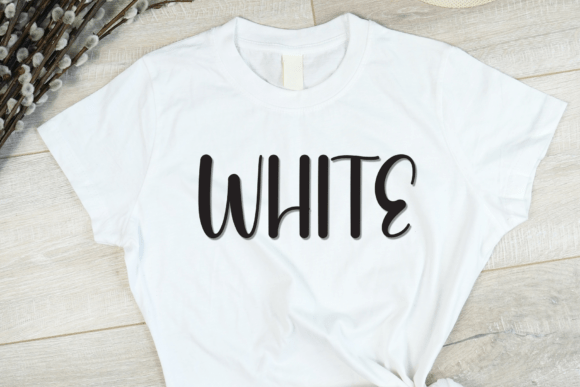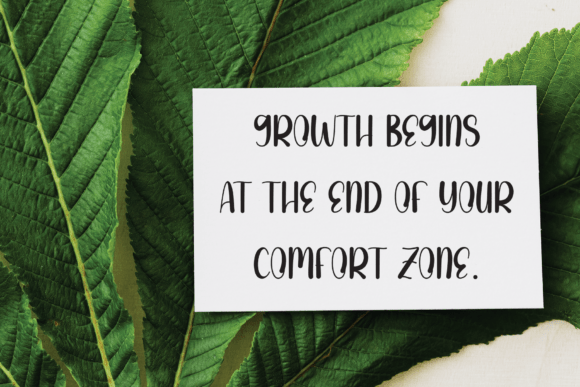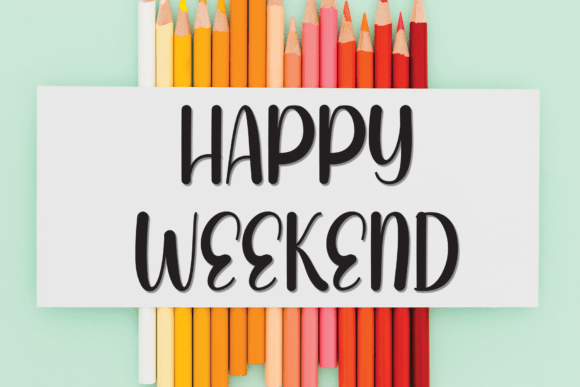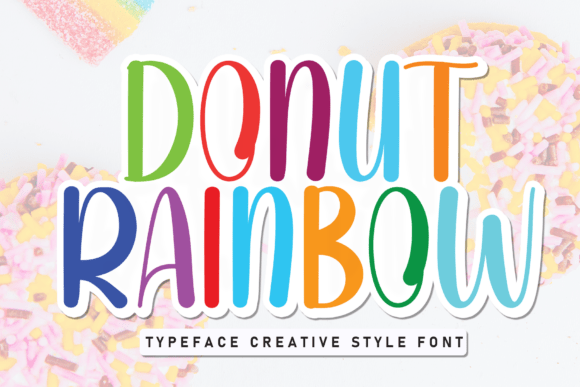
Introduction to Donut Rainbow Font
Donut Rainbow is a cheerful display font that pairs a rounded, chunky sans with a bouncy brush script for instant candy-shop vibes.
👤 Author Misterletter.co
Thick strokes, soft corners, and lively curves keep headlines bold yet friendly, perfect for bakery branding, kids’ packaging, party posters, stickers, and social content Clean spacing ensures easy readability, while the hand-lettered rhythm adds personality.
Key Features of Donut Rainbow Font
Why Choose Donut Rainbow Font?